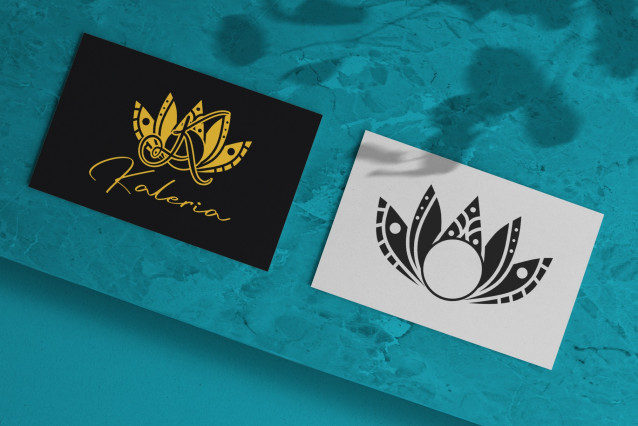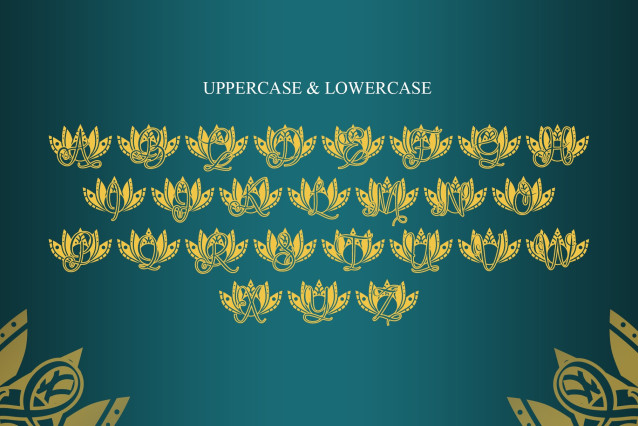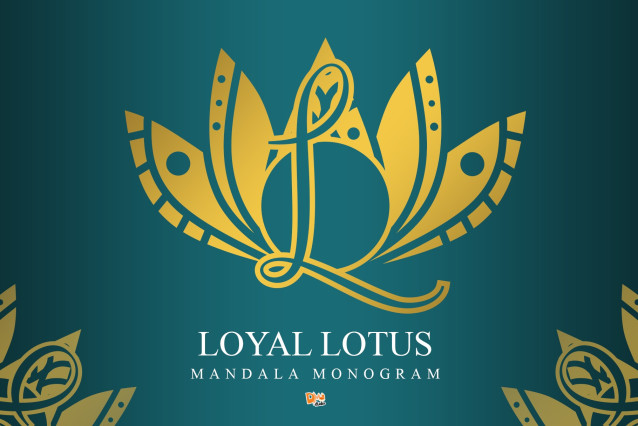
Loyal Lotus Mandala Monogram Font
Loyal Lotus Mandala Monogram is a graceful and detailed monogram font that blends the symbolic strength of the lotus flower with the intricate charm of mandala art. Ideal for spiritual designs, luxury branding, wedding invitations, personalized gifts, and boutique packaging, this ornamental typeface brings harmony and elegance to your creative work.